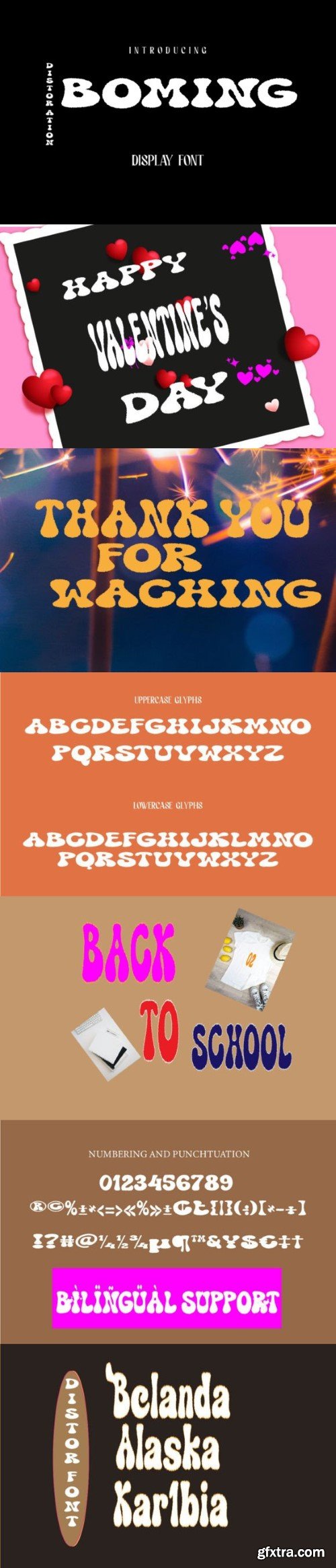
暴蒙字体
Introducing Boming font. where the beauty of handwriting combines with the dynamics of display. This font comes with regular and italic styles include regular distor for a classic look, italic for a touch of clear contours,.you can using easy for an experimental feel.